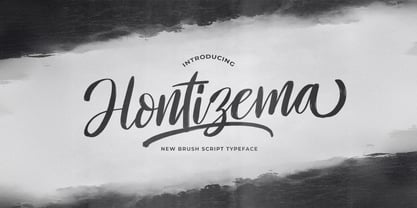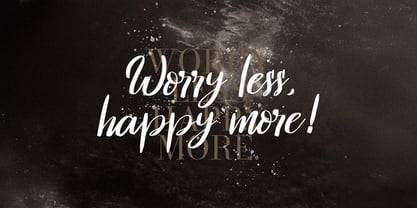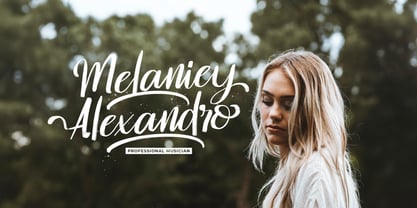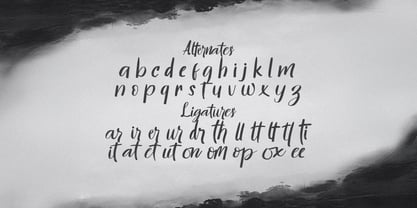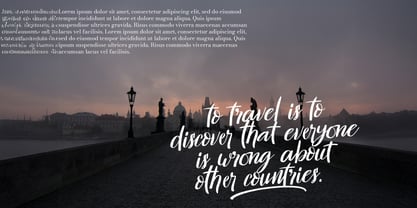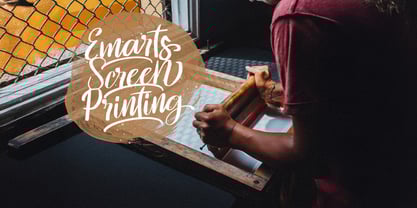
The Hontizema Font Family was designed by Virgiawan Listanto and published by Stringlabs Creative Studio. Hontizema contains 1 styles. More about this family
Hontizema is a delicate and flowing handwritten font that exudes elegance and charm. Crafted with beautifully balanced characters, it seamlessly complements a wide range of design projects.
Designers: Virgiawan Listanto
Foundry: Stringlabs Creative Studio